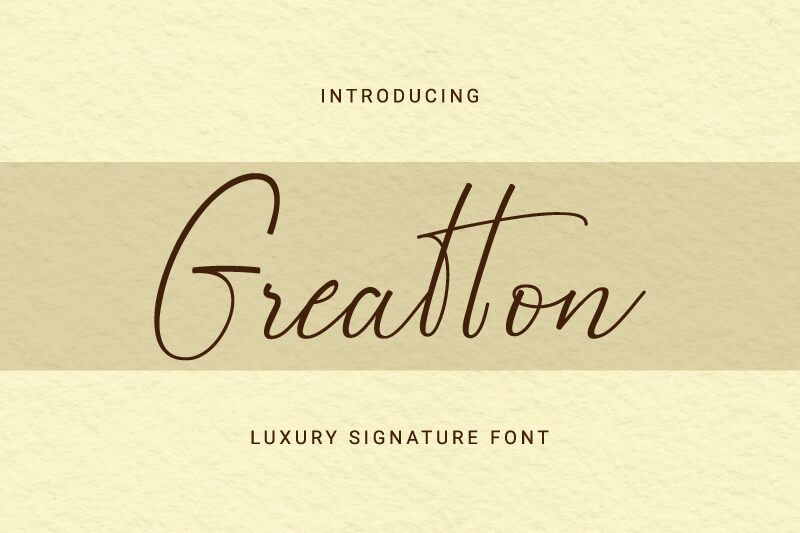
Greatton Script Font is a beautiful light signature typeface with a unique feel and a stunning impact designed by Gais Zealani of Jprint Studio. It will add a luxury spark to any design project that you wish to create!